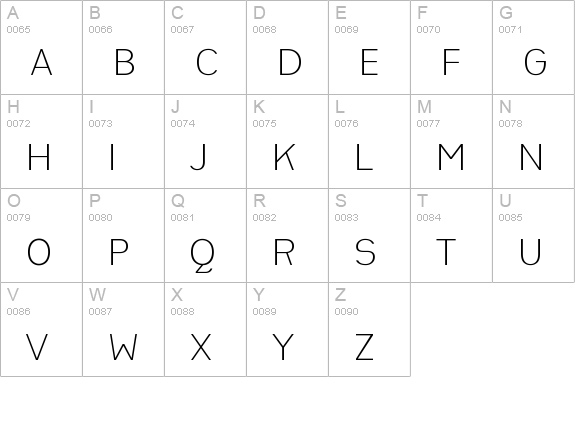
HeimatSans-ExtraLight Font Details
HeimatSans-ExtraLight is an airy, ultra-refined variant in the HeimatSans typeface family \xE2\x80\x94 well suited to minimalist headlines and refined display use.
HeimatSans-ExtraLight is a sophisticated and elegant typeface that exudes a sense of modernity and minimalism. With its clean lines and subtle curves, this font is perfect for creating a sleek and contemporary look in your designs. The ExtraLight weight adds a touch of delicacy and finesse, making it ideal for projects that require a subtle yet impactful typography choice. What makes HeimatSans-ExtraLight even more appealing is the fact that it is available for free download at FontsMarket.com. This means that you can easily access this beautiful font and incorporate it into your creative projects without any cost. Whether you're working on branding, editorial design, web design, or any other creative endeavor, HeimatSans-ExtraLight is sure to elevate your work with its timeless style and versatility. Download this font today and start exploring the endless possibilities it offers!